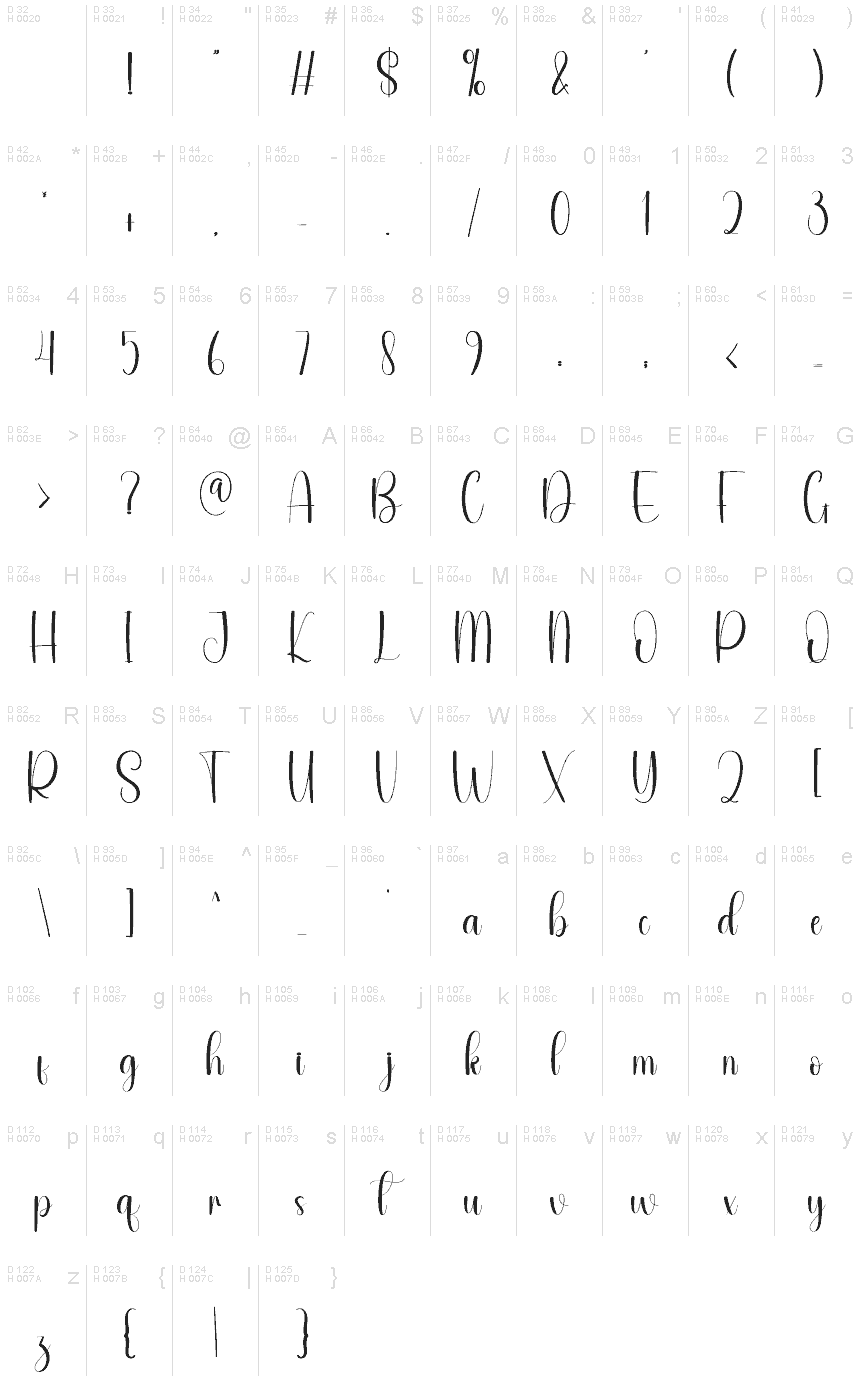
Exspression
Exspression font by Andi Moz beautifully marries sophistication and expressiveness in this handwritten free font with a contemporary flair. Fluid letterforms display artistic influence for words to perfectly flow from one character to the next. Its condensed design is neat yet stylish, providing users with all the letters necessary for a unique typographic experience.
This professional font without sacrificing flexibility can be used for greeting cards, books and magazine covers, apparel items and accessories, stationery tools for businesses or individuals like folder covers and business cards as well as branding designs (logs, labels). It can also be added to social media banners and posts or blogs.